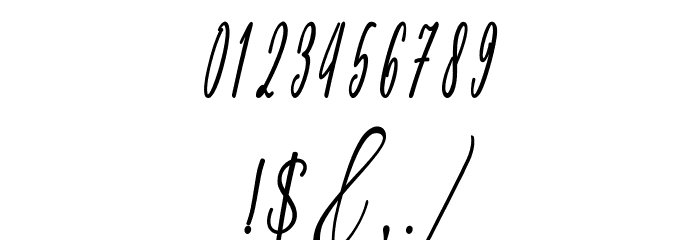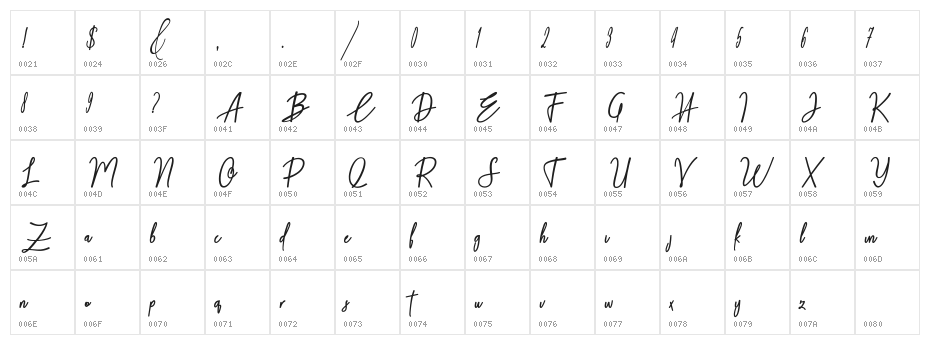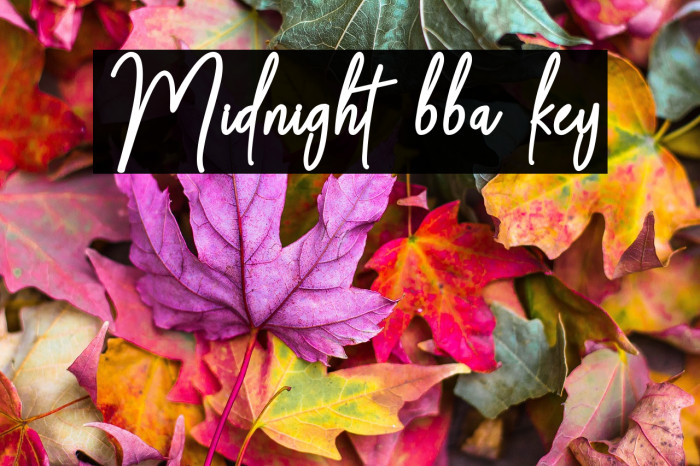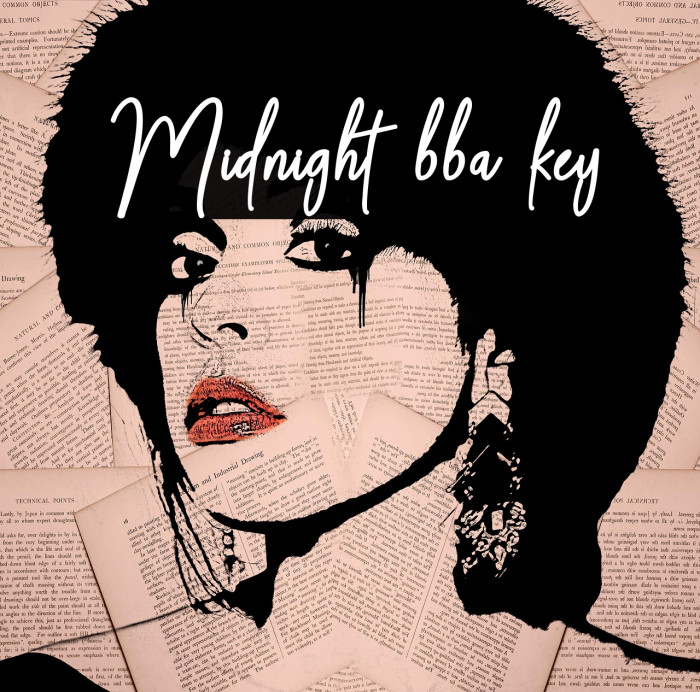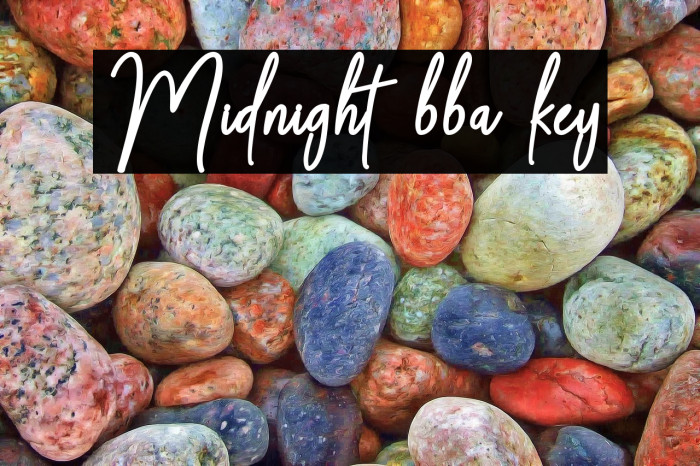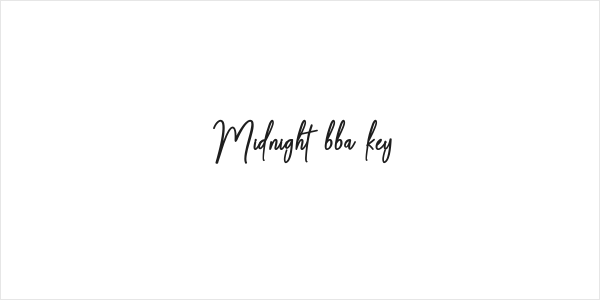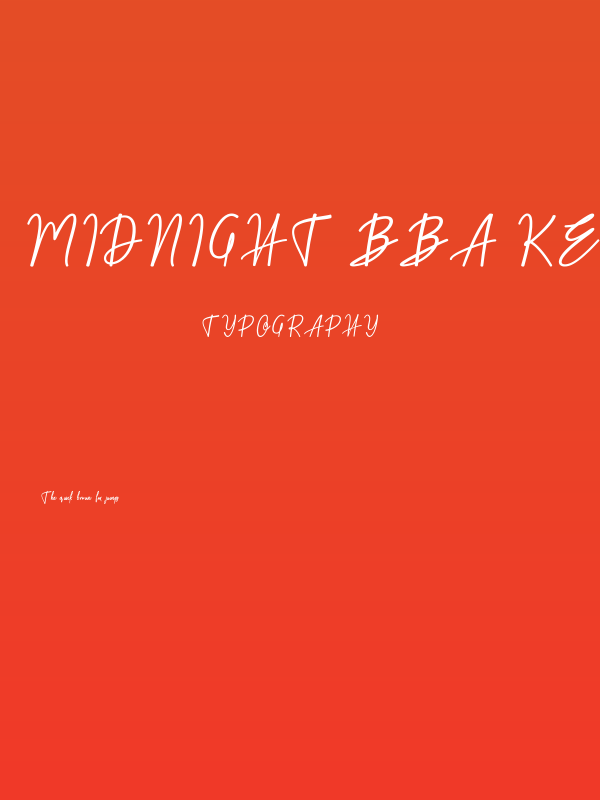
Midnight bba key Font
Midnight bba key Description
This font features a dynamic and fluid script style, characterized by its elegant and flowing letterforms. The uppercase letters exhibit a graceful, cursive design with smooth transitions and a slight slant, giving them a sophisticated appearance. The lowercase letters maintain a consistent style, with some variations in stroke thickness that add a touch of personality and flair. The numerals are clear and legible, following the same cursive theme, while the special characters integrate seamlessly into the overall design. This font exudes a sense of elegance and creativity, making it suitable for a variety of design projects.